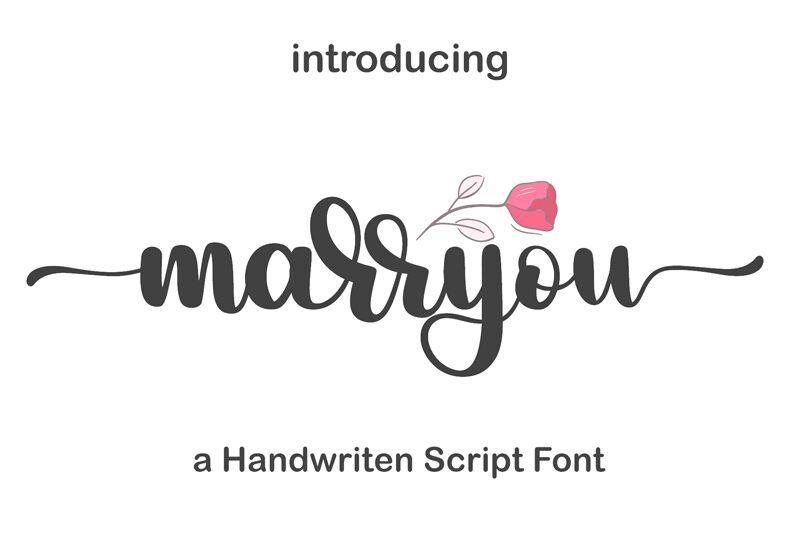
Marryou, the latest calligraphy semi-bold font from Bearytype, is the perfect choice for your next creative project. Whether you're designing wedding invitations or creating a new logo, Marryou's elegant and sophisticated style will add a touch of class to any design. The semi-bold weight adds just the right amount of emphasis without overpowering the delicate calligraphy strokes. Use Marryou for branding projects, social media graphics, or even product packaging. With its timeless appeal and versatile design, Marryou is sure to become a staple in your font collection.